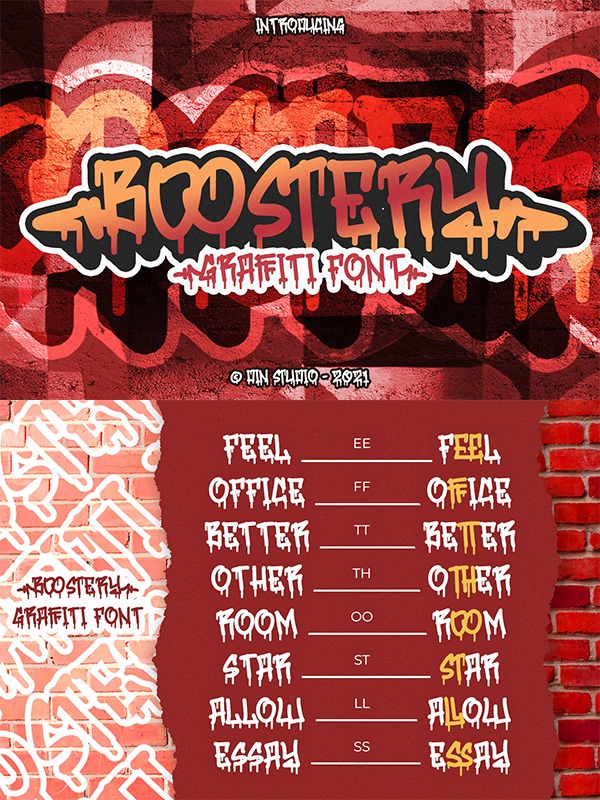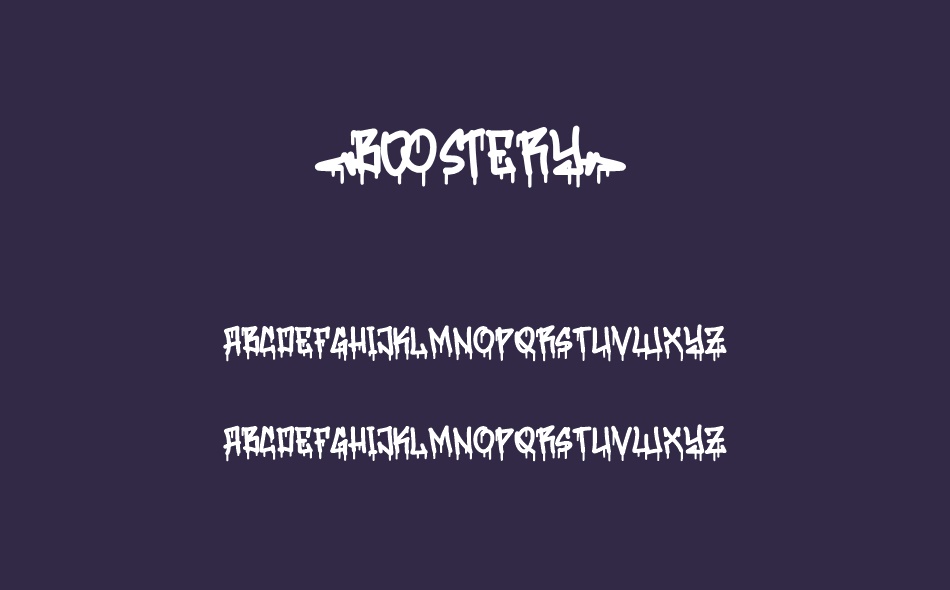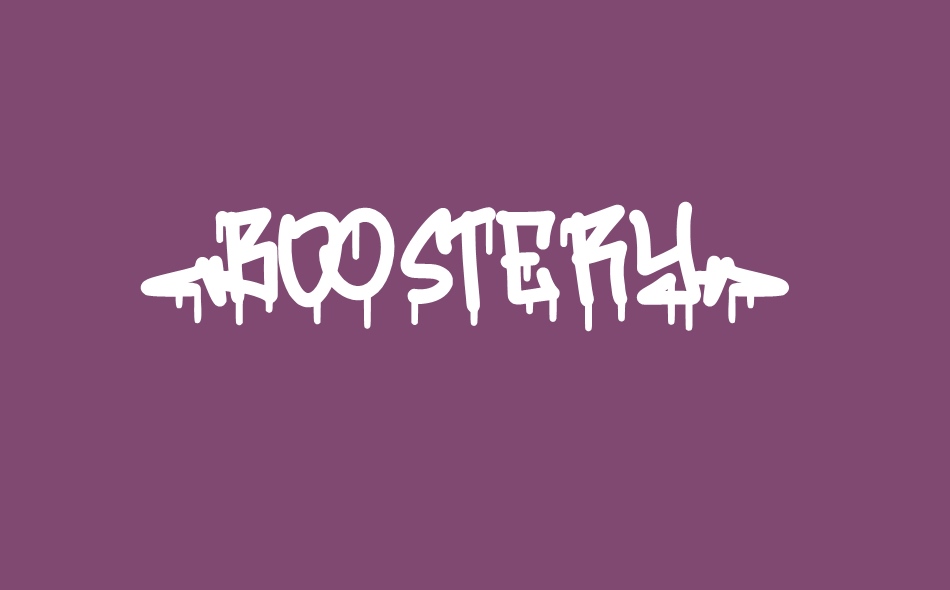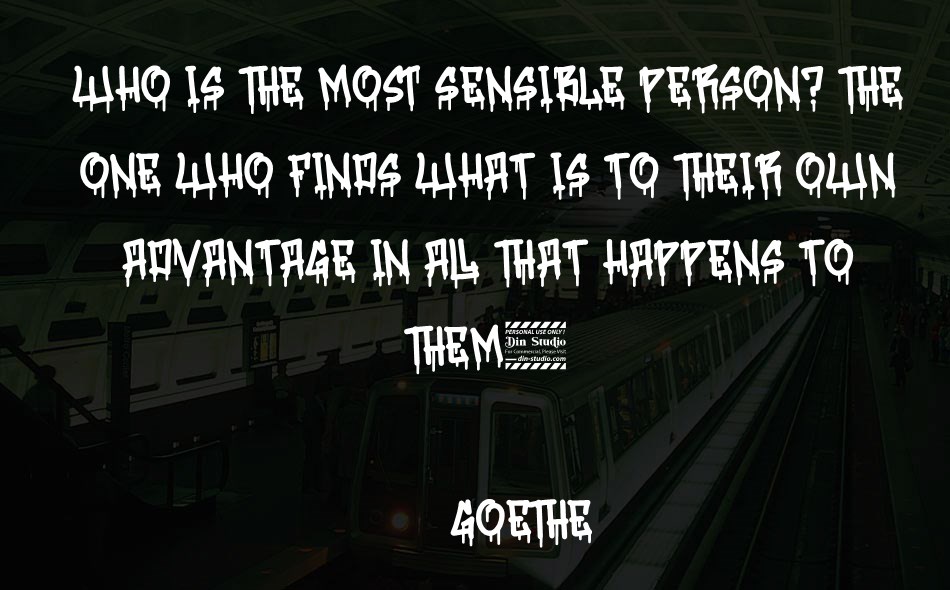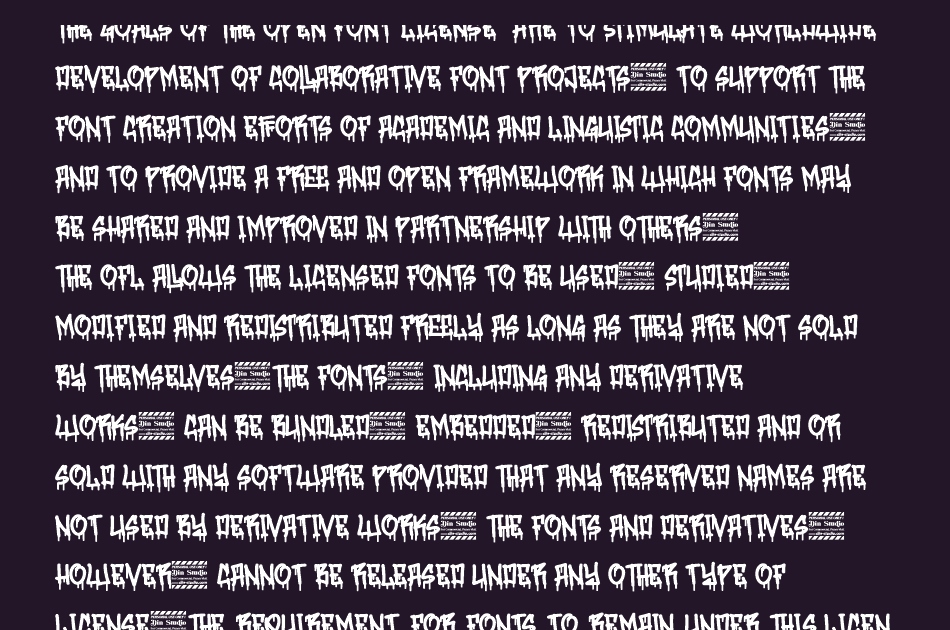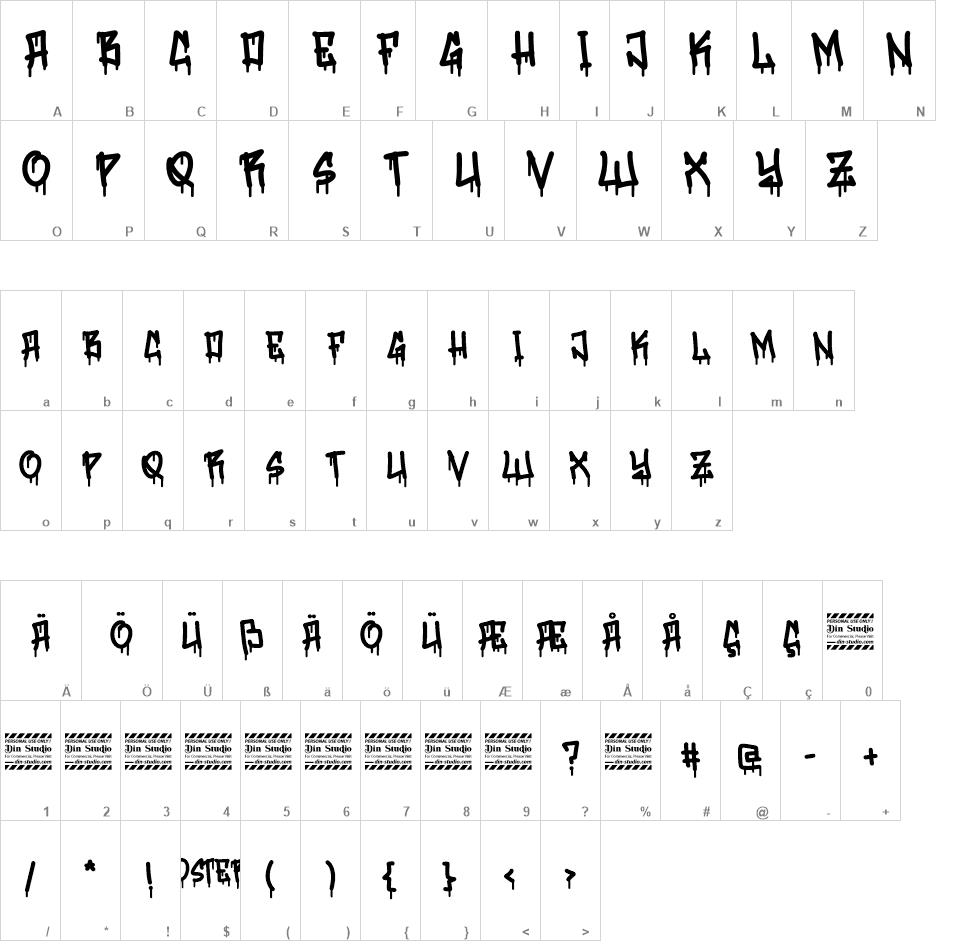
Boostery font
Boostery is a graffiti uppercase typeface that is inspired by the urban styles of graffiti. An intricately
designed typeface that weaves into itself to make beautiful designs. A highly versatile font choice for
your branding projects, loaded up with a wide range of stylistic alternatives for you to customize on the
fly.
Features:
• Ligatures
• Swashes
• Multilingual Support
• PUA Encoded
• Numerals and Punctuation
It is perfect to be used for many design projects, such as poster, logo, book cover, branding, heading,
printed product, merchandise, quotes, social media campaign, etc. Learn more about how to use it by
seeing the font preview.